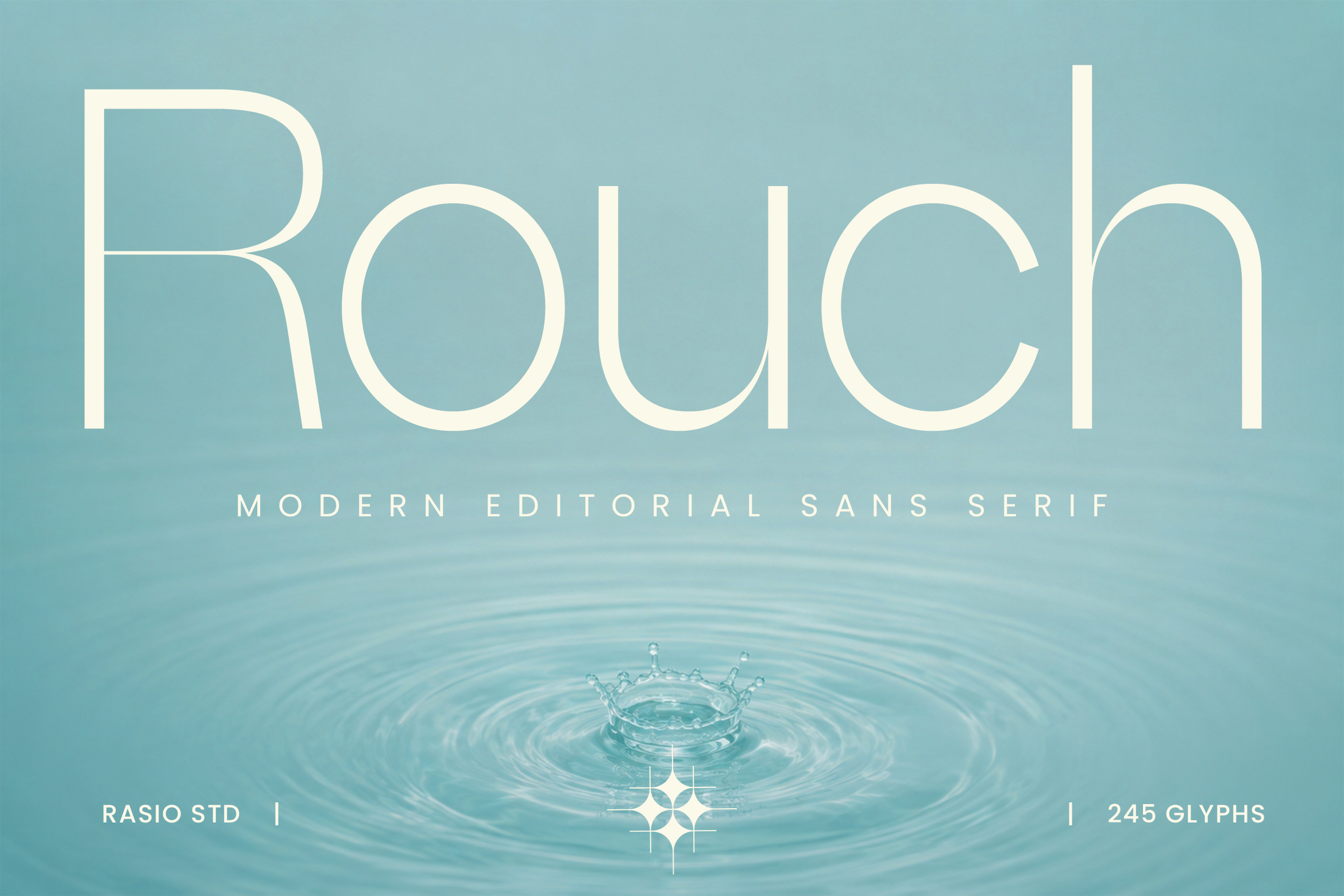
Rouch Modern Editorial Sans Font
Rouch Modern Editorial Sans Font is a modern editorial sans serif typeface featuring extremely thin strokes, elongated proportions, and refined geometric curves. The uppercase and lowercase characters are designed with a light monoline construction, giving the font an airy and sophisticated appearance while maintaining clear letter recognition. Its tall proportions, open counters, delicate terminals, and generous visual spacing make it particularly effective when typography needs to feel refined without becoming overly decorative. The character set includes 245 glyphs, covering uppercase, lowercase, numerals, and essential punctuation and symbols.
Rouch is primarily designed for editorial and display typography, especially where a clean, graceful, and understated appearance is needed. Use it for magazine covers, fashion headlines, beauty branding, luxury packaging, posters, lookbooks, campaign titles, logos, and sophisticated social media graphics. Its thin construction works best at larger sizes with sufficient spacing, allowing the fine strokes and elegant proportions to remain visible. For longer editorial layouts, it can be paired with a stronger sans serif for body copy, while using Rouch for headlines, section titles, captions, or short statements. It is also effective for minimal brand identities where the typography needs to create a polished and contemporary impression.
Thin geometric sans serif with a refined editorial character
Clean monoline structure with delicate, balanced proportions
Open counters and smooth curves for excellent readability
Minimalist letterforms create a light, airy visual presence
245 glyphs for versatile use across branding, editorial, and digital design
Brand identity for refined, minimalist, and contemporary visual systems
Editorial design for magazines, books, articles, and fashion layouts
Web and UI design for clean interfaces, portfolios, and digital products
Packaging design for skincare, lifestyle, beauty, and premium products
Social media graphics for sophisticated posts, campaigns, and promotional content
Supports numerals, punctuation, and extensive symbol set